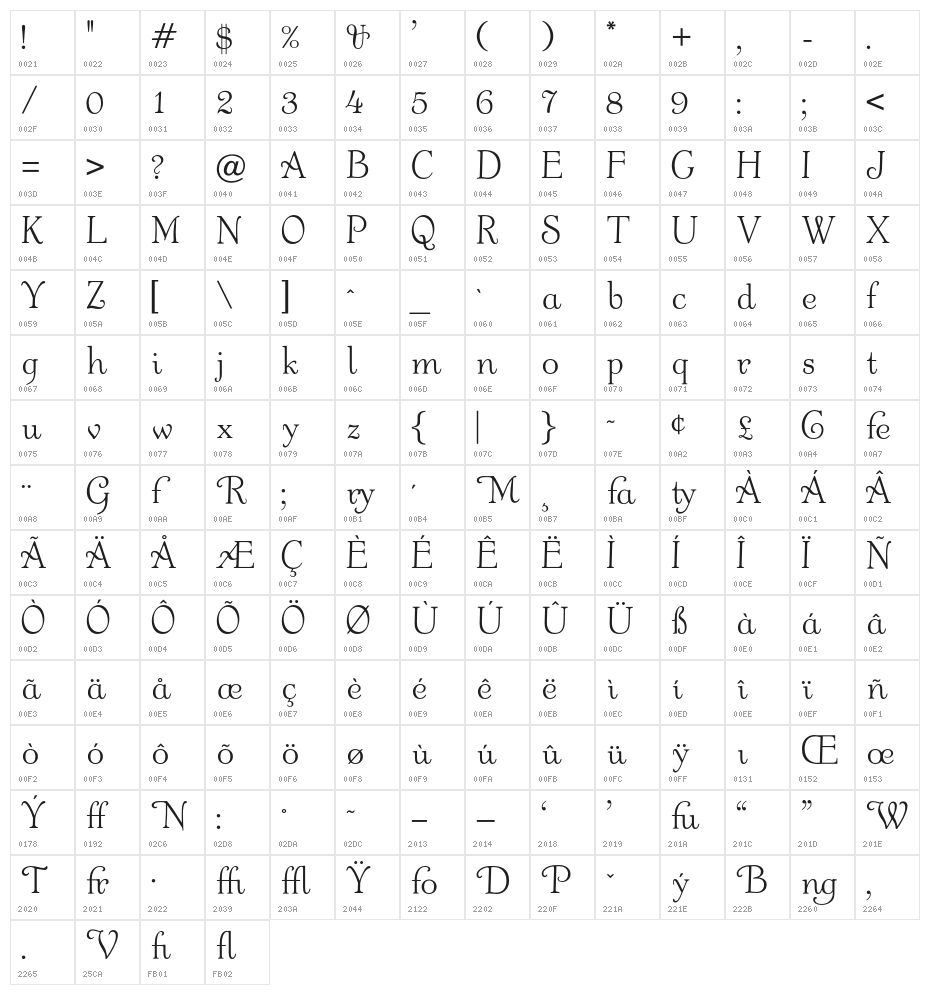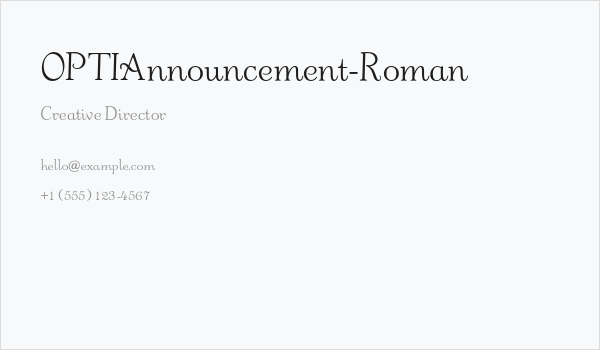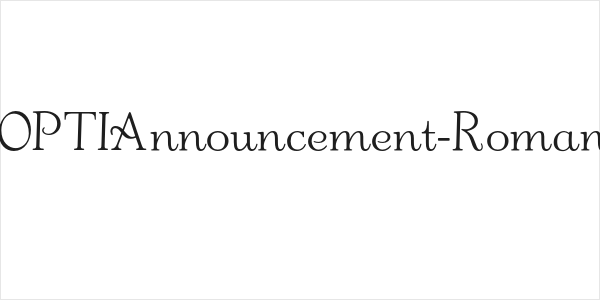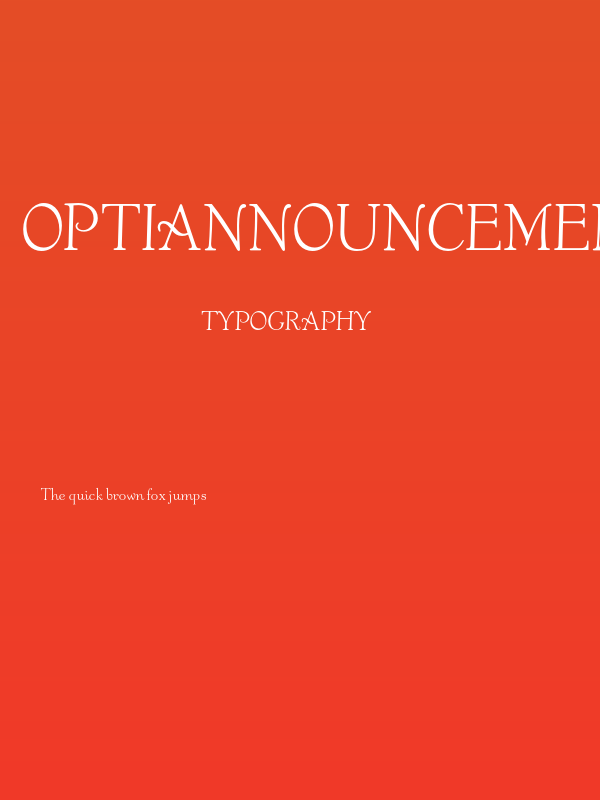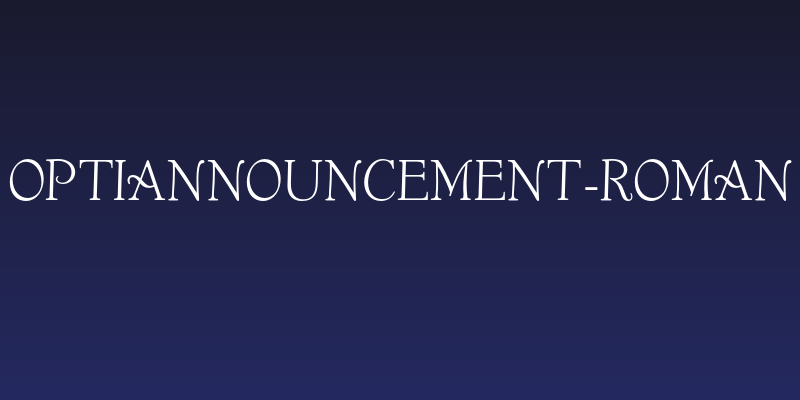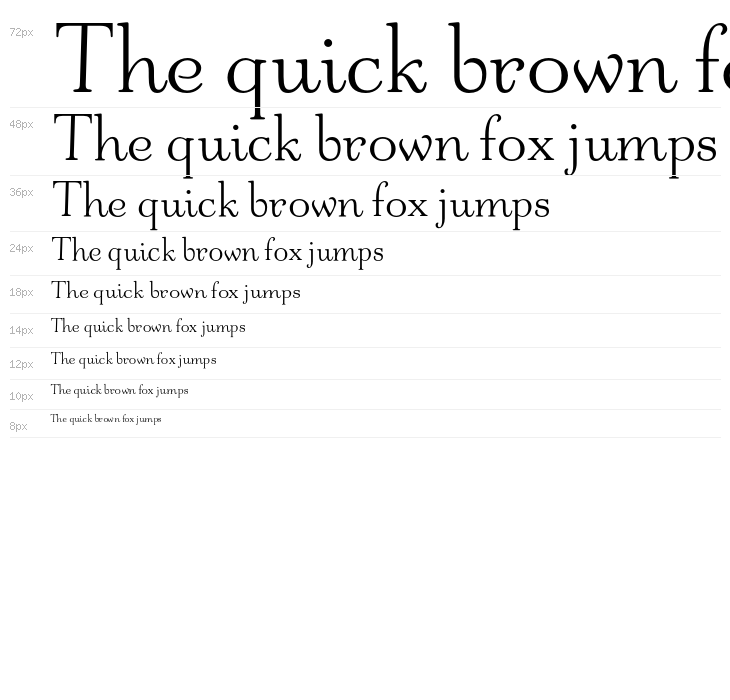
OPTIAnnouncement-Roman Font
OPTIAnnouncement-Roman Description
This font features a classic and elegant serif design, characterized by its graceful curves and refined strokes. The uppercase letters exhibit a traditional Roman style with subtle flourishes, while the lowercase letters maintain a consistent and harmonious appearance. The numerals are distinct and easy to read, with a slight old-style influence. Special characters are thoughtfully designed to complement the overall aesthetic. The font's balanced proportions and moderate contrast make it suitable for a variety of applications, offering both readability and sophistication.
Overall StyleClassic
Proposed ProjectsIdeal for formal invitations, editorial design, branding, and elegant signage.